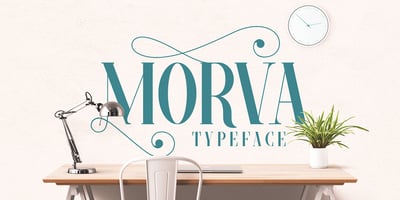
MORVA Font Family was designed by Alit Suarnegara and published by Alit Design. MORVA contains 4 styles and family package options. Introducing MORVA TYPEFACE a simple and beautiful font made with persistence and passion. MORVA typeface have a unique character when compared with the others serif font, it have special bracketed serif shape and combine with beautiful swirl ornament’s. MORVA typeface is suitable for simple logo design, website header, wedding design, menu fonts for website. to design fashion, and others who have a minimalist and simple concept. Product Content : • MORVA regular (OTF & TTF Format) • MORVA italic (OTF & TTF Format) • MORVA Ornaments (OTF & TTF Format) Features : • Character uppercase and lowercase • Numerals & Punctuations (OpenType Standard) • Accents (Multilingual characters) • Ornament A-z ( 52 glyphs ) Thank you and enjoy 🙂